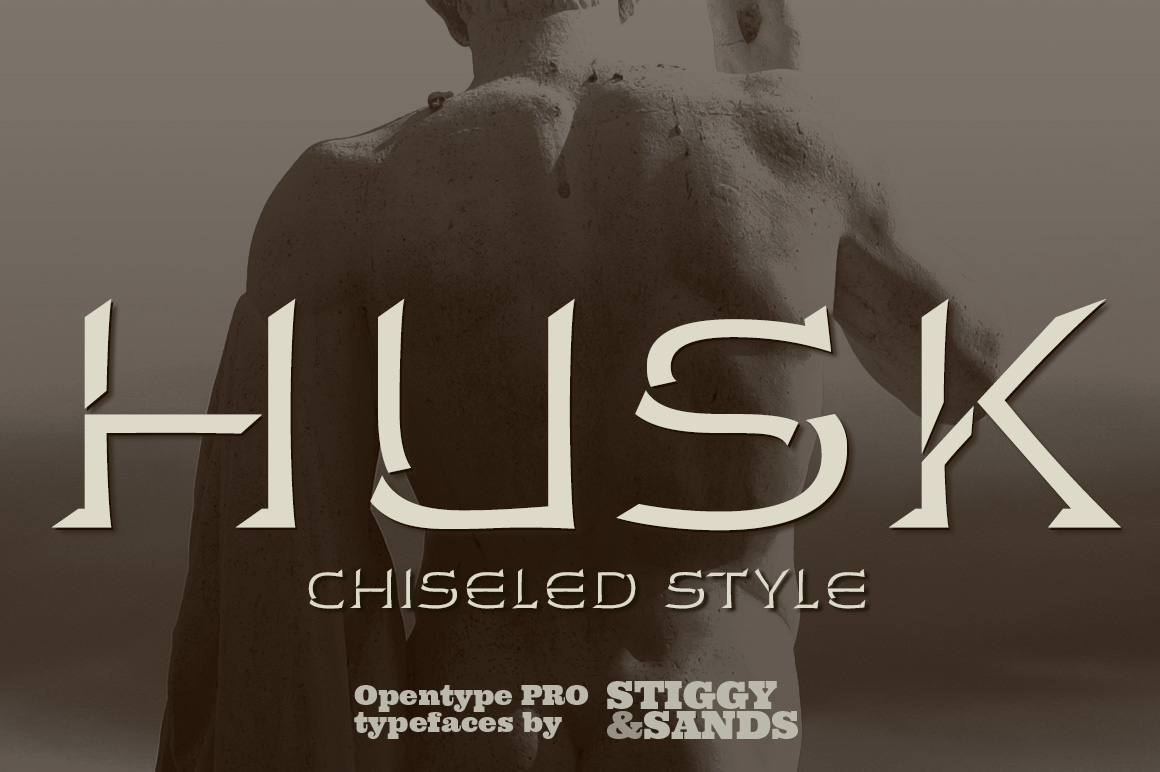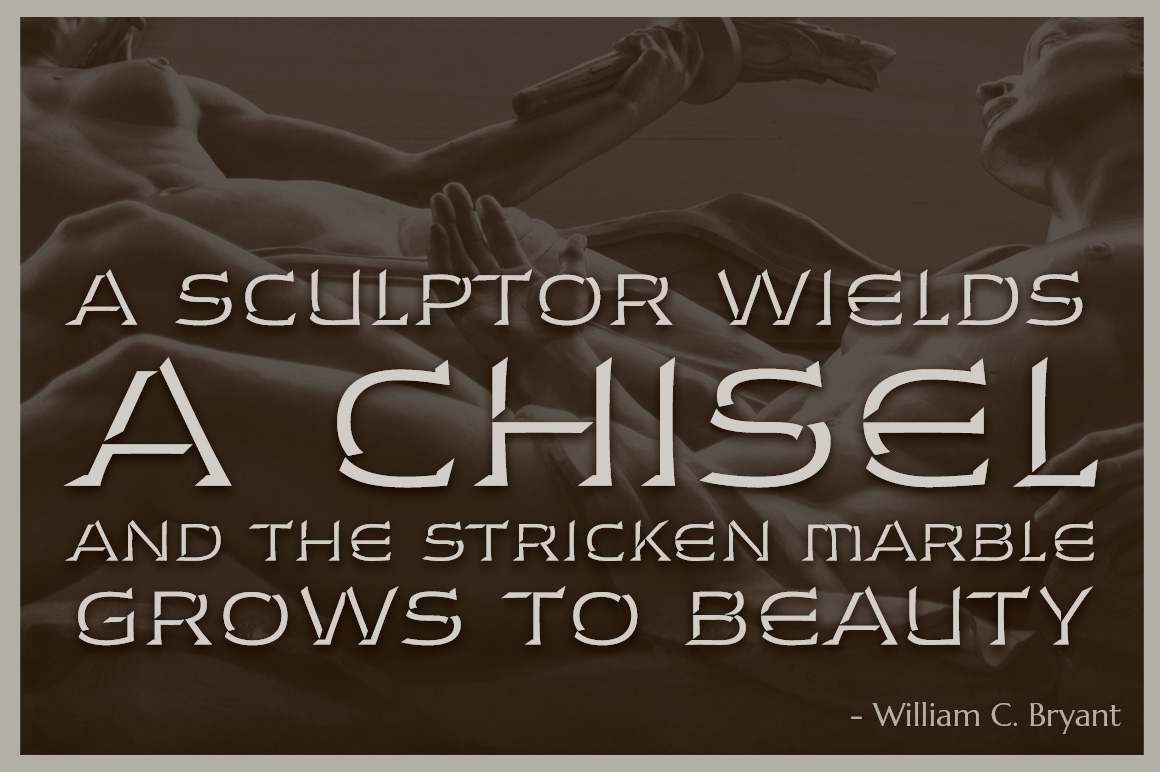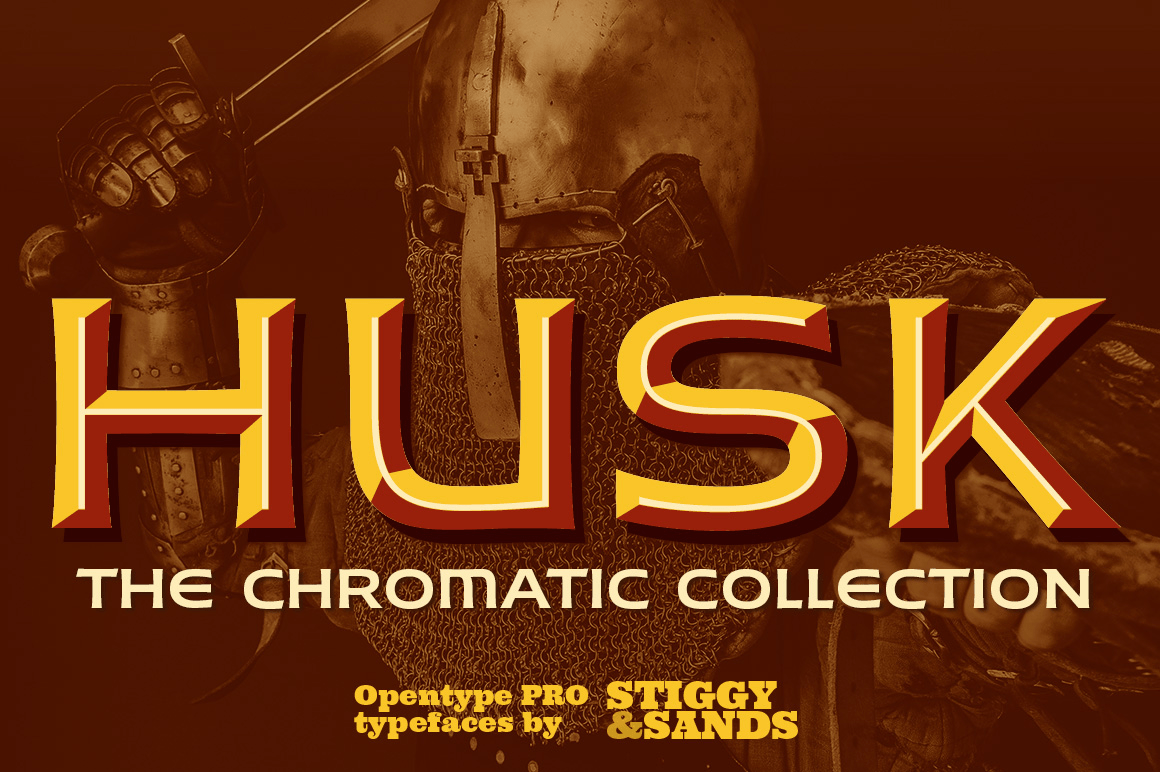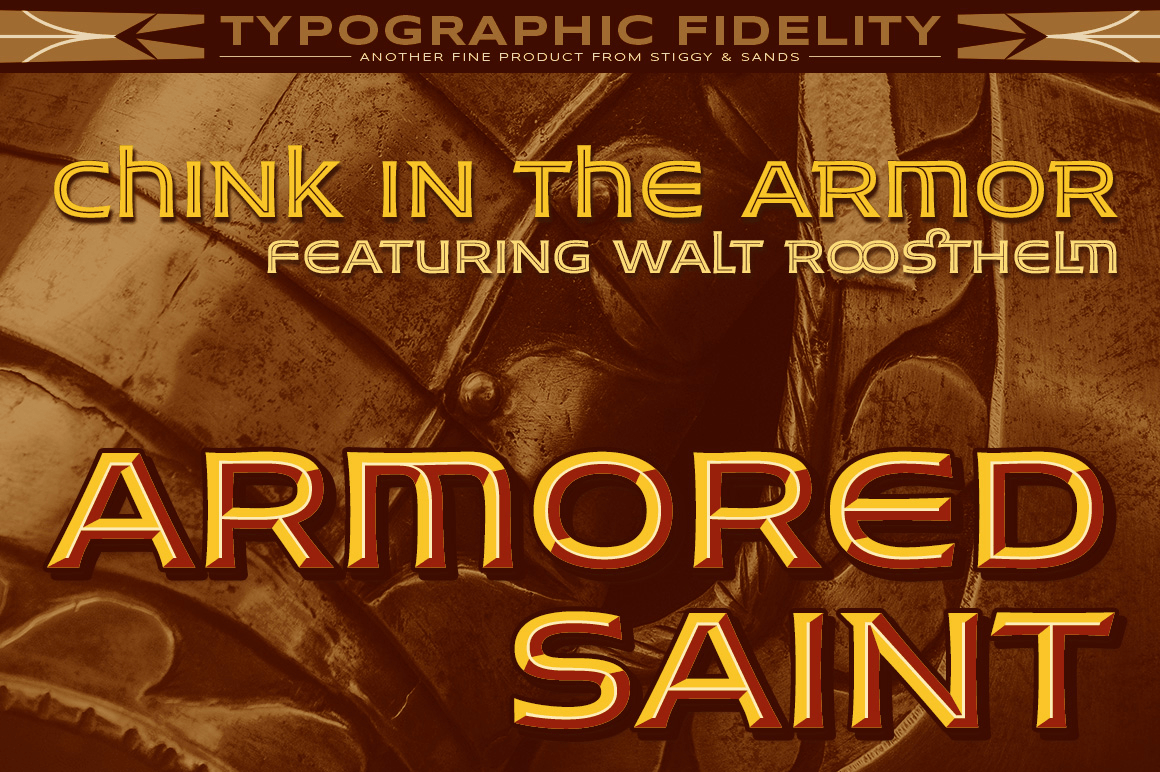
About Husk
The Husk Family began as a digitization of a film typeface called Maile by LetterGraphics. From there, it has evolved to a much more robust character set than its original reference. With multiple numerals sets, creative discretionary ligatures, as well…